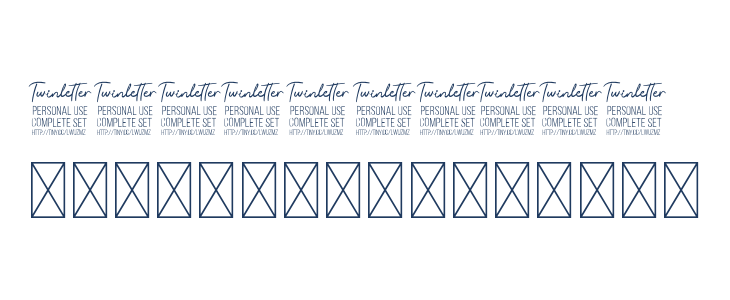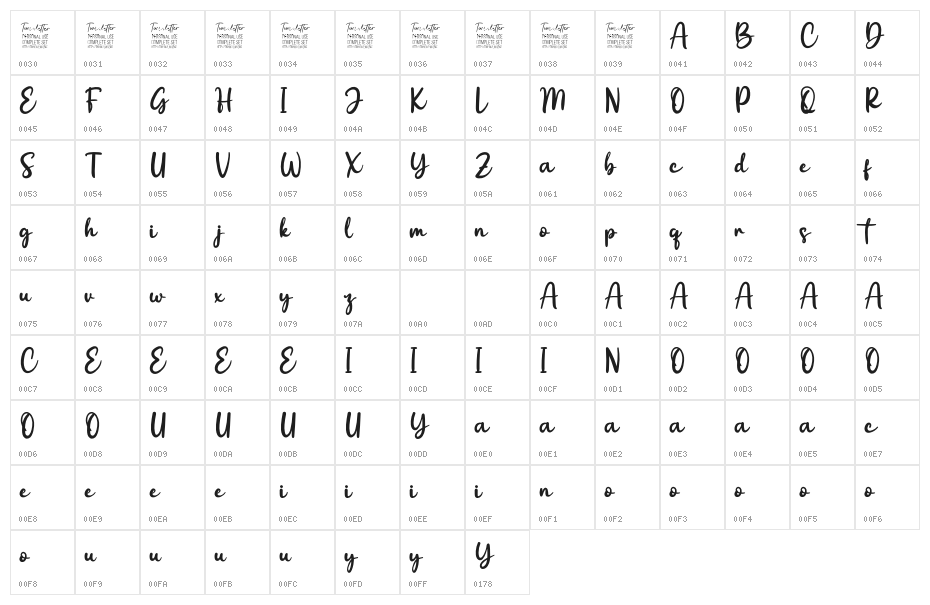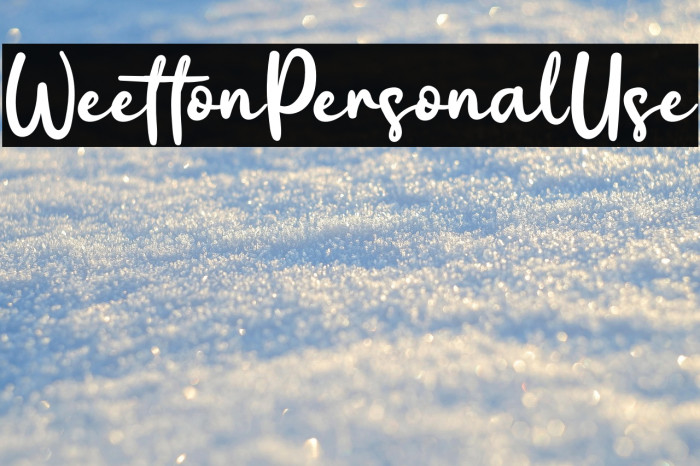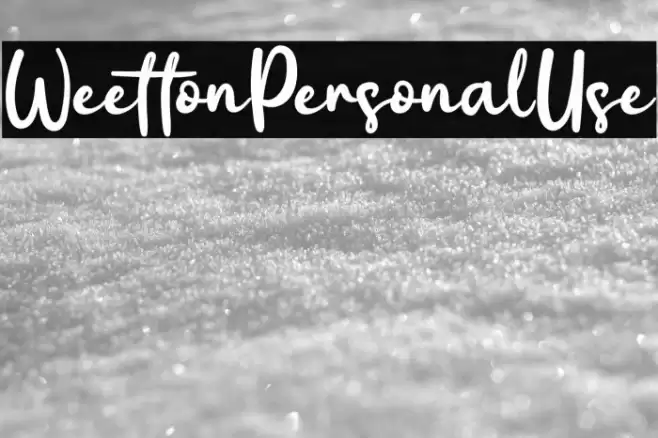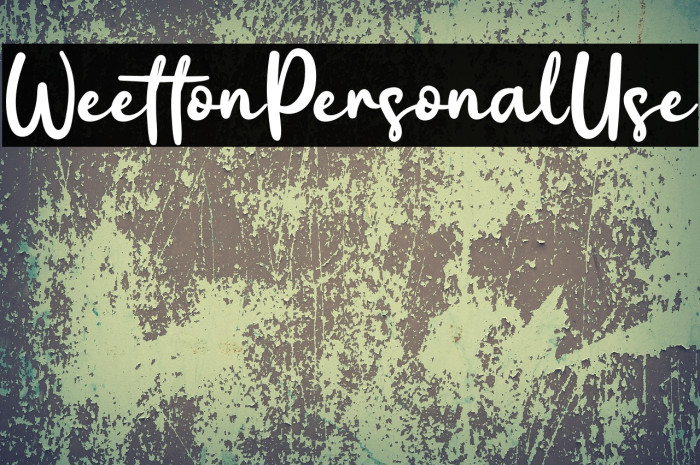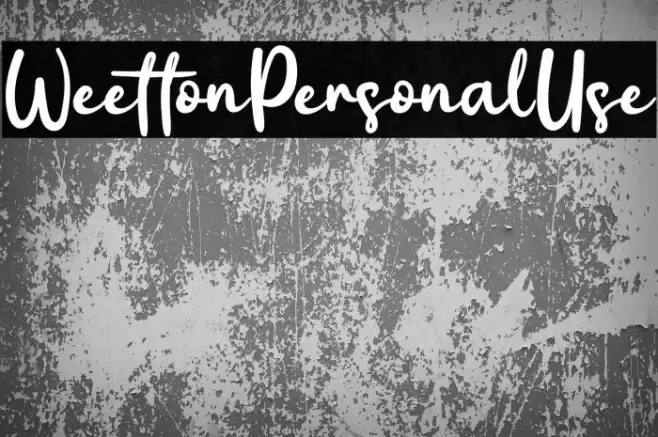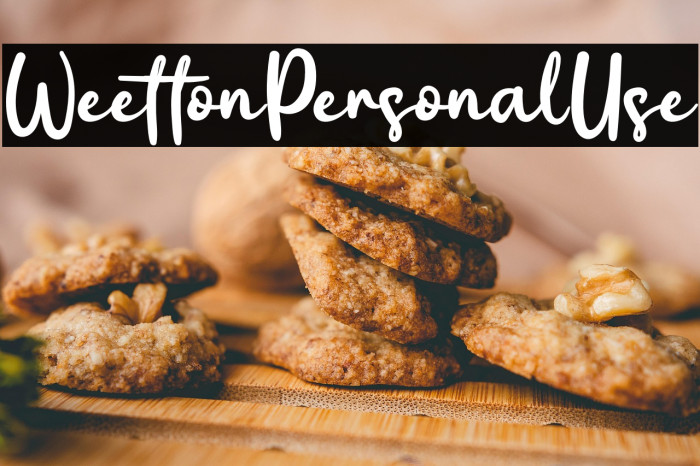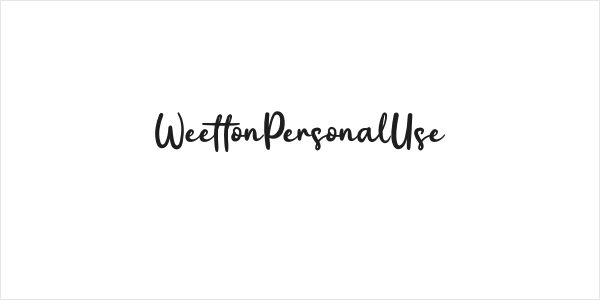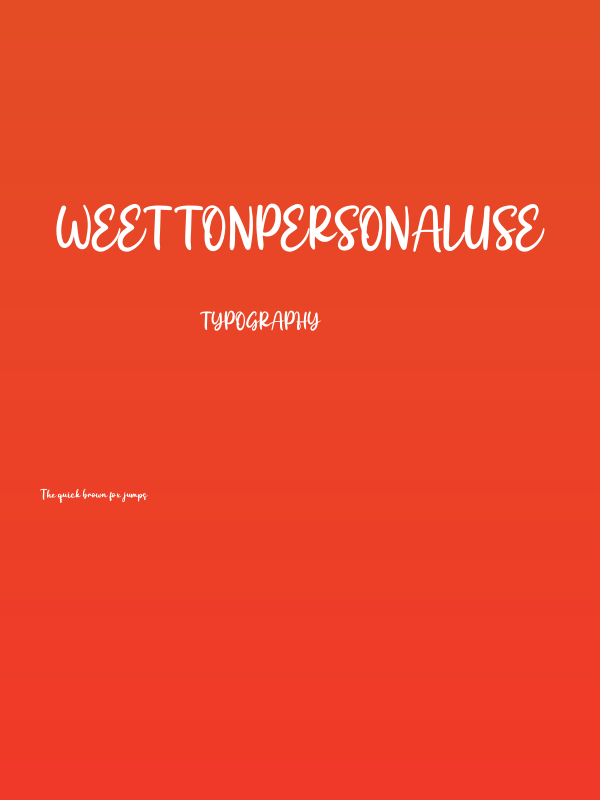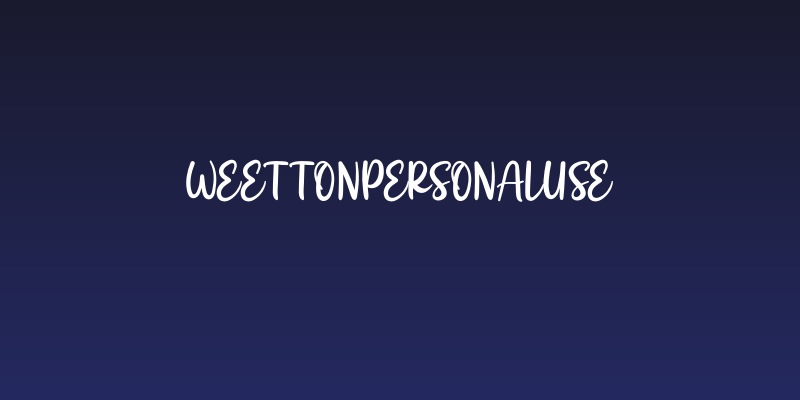
WeettonPersonalUse Font
WeettonPersonalUse Description
This font features a playful and energetic script style with a handwritten appearance. The uppercase letters are bold and slightly slanted, giving a dynamic feel, while the lowercase letters maintain a consistent flow with smooth curves and loops. The strokes are thick and uniform, providing a strong visual impact. The font's casual and friendly nature makes it suitable for creative and informal designs. It includes a full set of uppercase and lowercase letters, numbers, and a selection of special characters, enhancing its versatility.
| Proposed Projects | Ideal for greeting cards, invitations, branding, and social media graphics. |